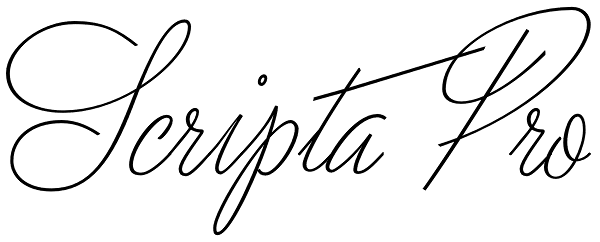
Scripta Pro
Scripta is a family of typefaces that leads "Scripta Pro", a commercial script writing similar to those used in ads advertising the decades 40 and 50, with fine lettering combinations of that time, Scripta Pro is ideal for composing headlines and...
Scripta Pro